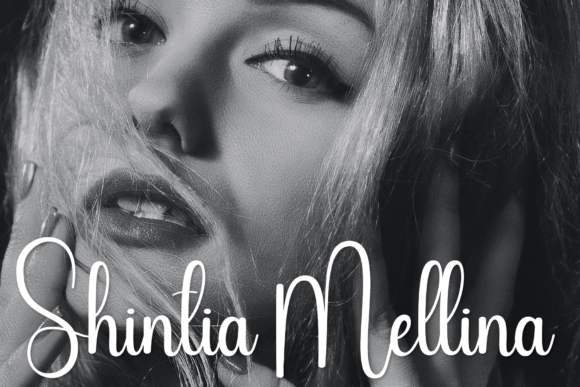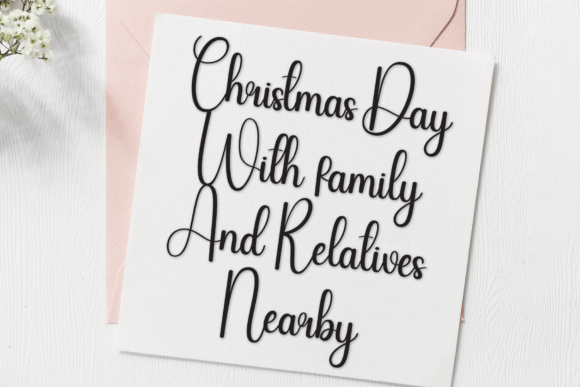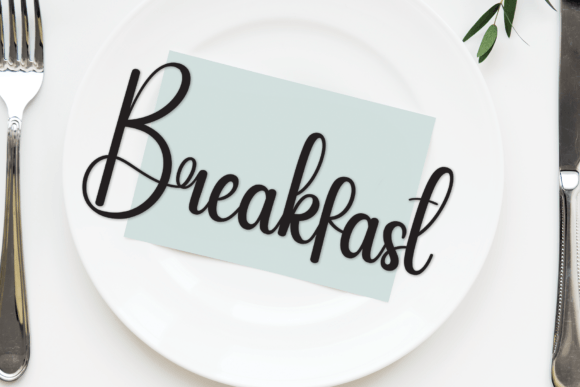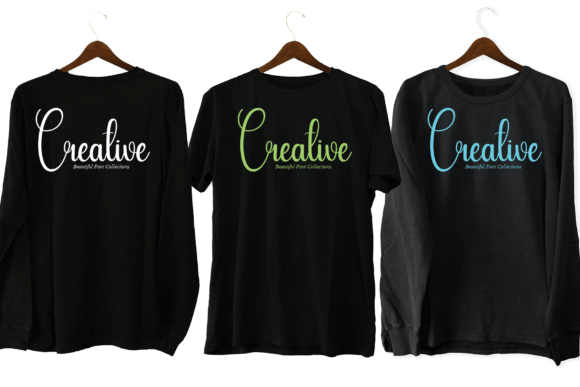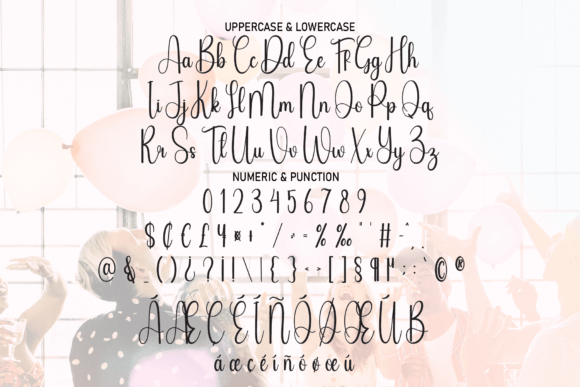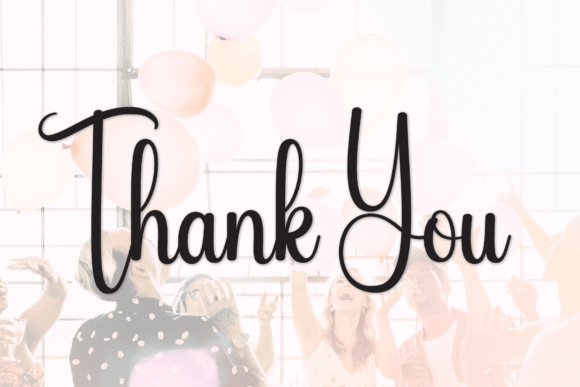
Introducing Festival Font: The Perfect Handwritten Font for Your Creative Projects
Are you a designer, crafter, or DIY enthusiast looking for a unique and versatile font to elevate your creative projects? Look no further than Festival Font, a neat and casual handwritten font that’s perfect for a wide range of applications. In this article, we’ll explore the features and benefits of Festival Font, and show you how it can make your designs stand out from the crowd.
What is Festival Font?
Festival Font is a carefully crafted handwritten font that’s designed to be incredibly versatile. Its neat and casual style makes it perfect for use in a variety of contexts, from formal documents to social media graphics, and from craft projects to professional branding. Whether you’re looking to add a personal touch to your designs or create a unique visual identity for your brand, Festival Font is the perfect choice.
Key Features of Festival Font
- Unique and Handwritten Style: Festival Font boasts a distinctive handwritten style that’s both elegant and approachable. Its unique character set ensures that your designs will stand out from the crowd.
- Versatility: Festival Font is incredibly versatile, making it suitable for use in a wide range of applications, from digital designs to print materials.
- Easy to Read: Despite its unique style, Festival Font is incredibly easy to read, making it perfect for use in body text, headings, and titles.
- High-Quality Design: Festival Font is designed to the highest standards, ensuring that it looks great in any context.
Use Cases for Festival Font
So, what can you use Festival Font for? The possibilities are endless! Here are a few ideas to get you started:
- Branding and Identity: Use Festival Font to create a unique visual identity for your brand, including logos, business cards, and letterheads.
- Social Media Graphics: Add a personal touch to your social media graphics, including Facebook posts, Instagram stories, and Twitter headers.
- Craft Projects: Use Festival Font to add a personal touch to your craft projects, including handmade cards, gift tags, and scrapbooking pages.
- Digital Designs: Use Festival Font in your digital designs, including website headers, email newsletters, and digital invitations.
Why Choose Festival Font?
So, why should you choose Festival Font for your creative projects? Here are just a few reasons:
- Unique Style: Festival Font boasts a unique and distinctive style that’s sure to make your designs stand out.
- Easy to Use: Festival Font is incredibly easy to use, even for those with limited design experience.
- High-Quality Design: Festival Font is designed to the highest standards, ensuring that it looks great in any context.
- Versatility: Festival Font is incredibly versatile, making it suitable for use in a wide range of applications.
In conclusion, Festival Font is a fantastic choice for designers, crafters, and DIY enthusiasts looking for a unique and versatile font to elevate their creative projects. With its neat and casual handwritten style, ease of use, and high-quality design, Festival Font is perfect for a wide range of applications. So why not give it a try and see how it can make your designs stand out from the crowd?